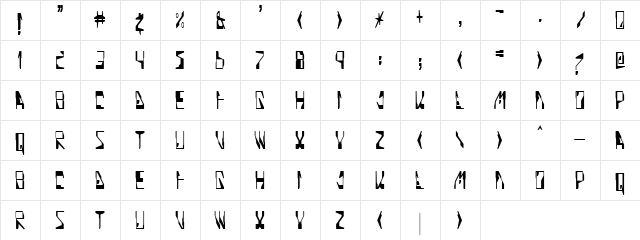
Quinoline Normal
Design Context for Quinoline Typeface
Quinoline is a composed and adaptable typeface that performs quietly and consistently across a wide range of design contexts.